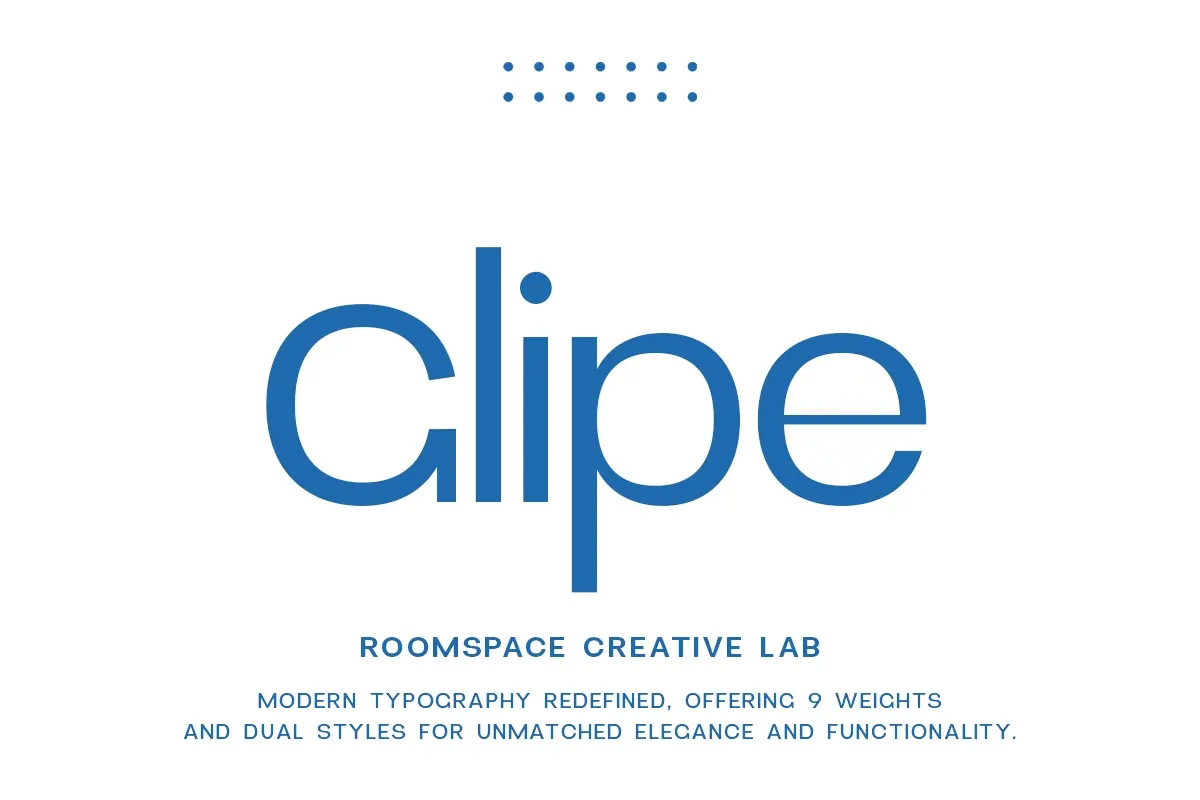
Glipe - Stylish Modern Family Free Download
Glipe – Stylish Modern Font Family Free Download is a sleek and contemporary typeface collection crafted for clean, bold, and high-impact designs. Please note: you must purchase this font for commercial use, but you can test it through a free download. With multiple weights and a sharp geometric style, Glipe is perfect for branding, editorial layouts, UI/UX design, social media graphics, and minimalist packaging.
This font family blends modern aesthetics with excellent readability, giving designers the flexibility to create sophisticated visual hierarchies. Whether you’re building a tech-forward brand or crafting polished presentations, Glipe – Stylish Modern Font Family Free Download offers the clarity and edge your projects need. Fully compatible with Adobe Illustrator, Photoshop, Canva, and more. Download it today for personal use and elevate your design work with the refined precision of Glipe.